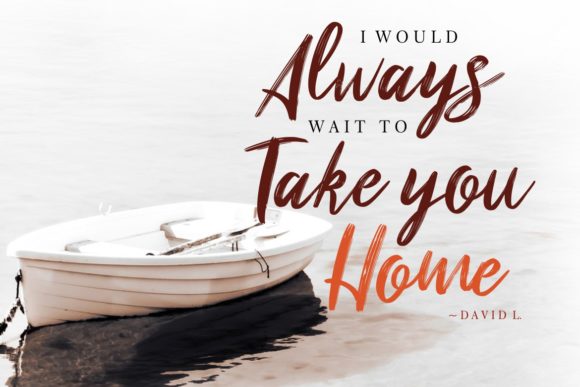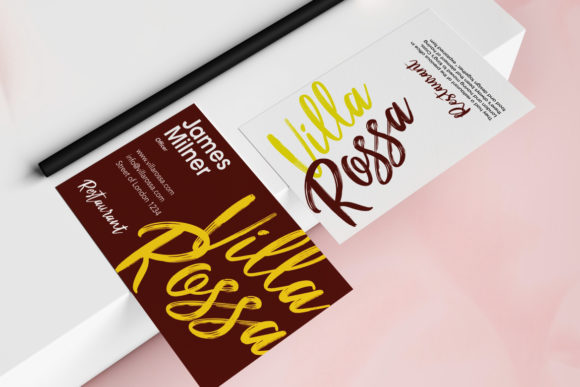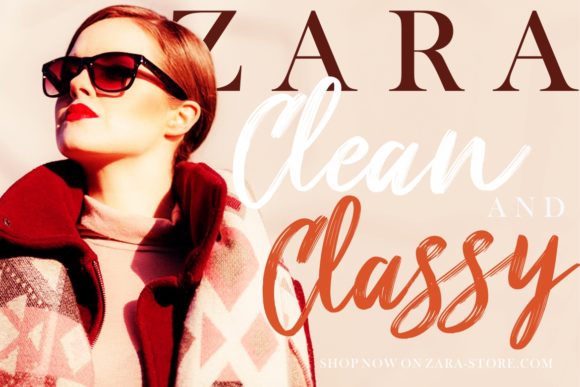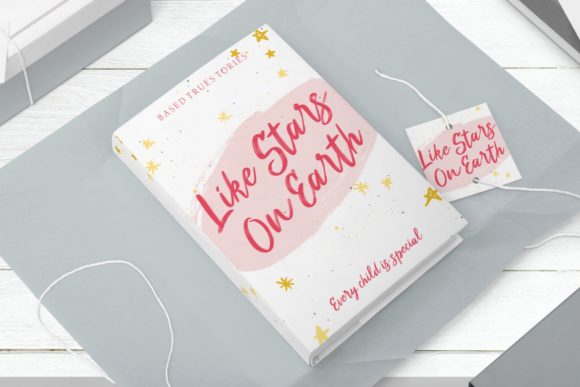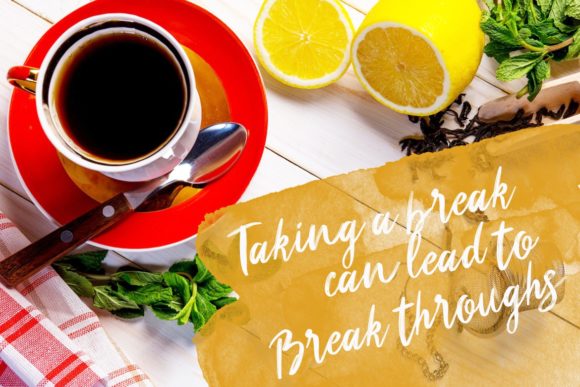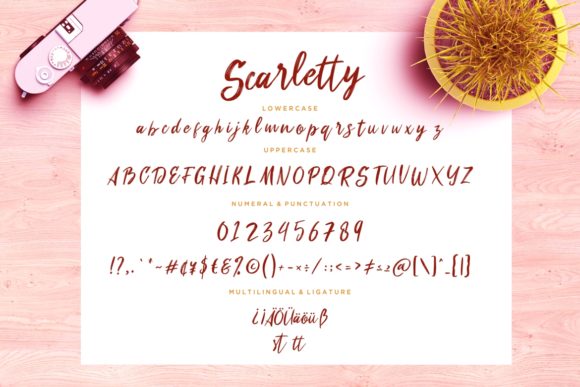
Introduction to Scarletty Font
Do you remember that moment when you’re working on a creative project and you’re struggling to find the perfect font to bring it all together? You’ve tried countless options, but nothing seems to match the vision in your head. Well, we’re here to introduce you to the solution that will change the way you design – the Scarletty Font.
This elegant handwritten font is a game-changer for designers. With its high-quality design and transparent background, it’s the perfect addition to any project. Whether you’re working on a logo, a poster, or a social media graphic, the Scarletty Font is sure to make your design stand out. And the best part? It’s a free download, making it an essential resource for any creative project.
So why settle for an ordinary font when you can have the Scarletty Font? This versatile style is sure to elevate your designs and leave a lasting impression on your audience. Get ready to fall in love with the Scarletty Font and take your designs to the next level!
Key Features of Scarletty Font
- High-quality, elegant script font suitable for creative projects.
- Transparent background, allowing for easy layering and customization.
- Comes in 6 styles, each with its unique characteristics and flair.
- Scalable up to 72pt, with a resolution of 300 DPI for crisp and clear display.
- Perfect for wedding invitations, branding, and other design elements where a touch of elegance is required.
Honest Review: Scarletty Font
I recently stumbled upon the Scarletty Font and I must say it’s a great addition to any designer’s toolkit. This free download is perfect for creative projects that require a touch of elegance and sophistication.
- What works well: ✨ The Scarletty Font offers a high quality, modern design that’s sure to impress. The transparent background makes it easy to customize and pair with other design elements.
- What works well: ✨ The font is highly versatile and can be used for a wide range of applications, from headings to body text.
However, I did encounter a few limitations. ⚠️ The font may not be suitable for projects that require a more traditional or classic look. Additionally, the font’s bold weight can be a bit overpowering in certain contexts.
Overall, I’m impressed with the Scarletty Font and would definitely recommend it to designers who are looking for a high-quality, modern font for their creative projects. It’s a great addition to any design resource library and can be a valuable asset for designers of all levels.
Tips for Getting the Most Out of Scarletty Font
For the best results, use Scarletty Font as a design resource for creative projects that require a high-quality, unique font. Experiment with different font sizes, colors, and styles to add visual interest to your design. You can also combine Scarletty Font with other design elements to create a cohesive look.
Scarletty Font is ideal for use in creative projects such as logos, branding materials, social media graphics, and marketing materials. It’s also a great design resource for those who want to add a touch of elegance and sophistication to their designs.